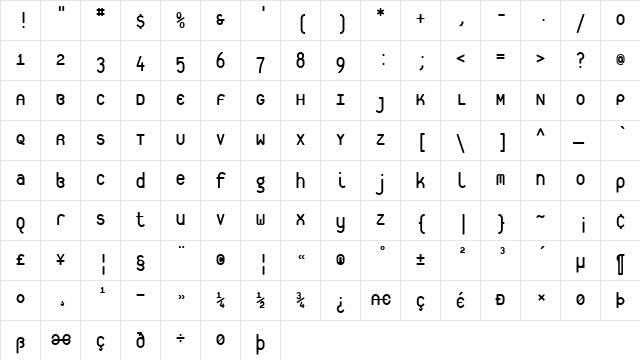
Platelet Medium Font Preview
Platelet Medium
Design Context for Platelet Typeface
Platelet is a composed and adaptable typeface that performs quietly and consistently across a wide range of design contexts.